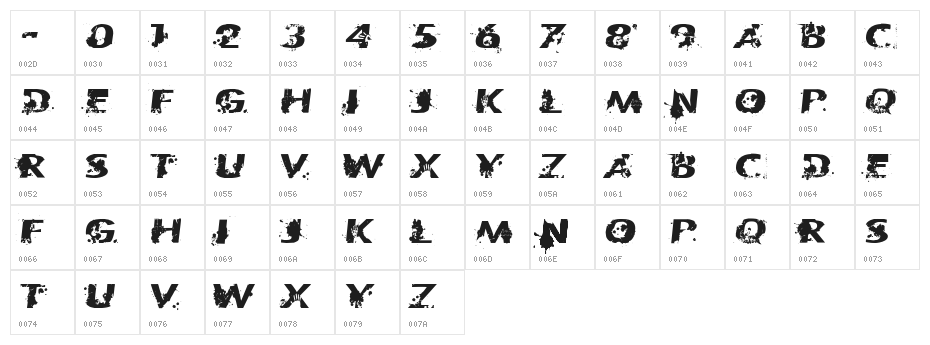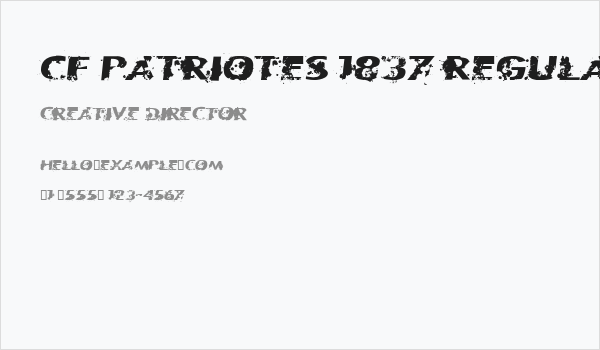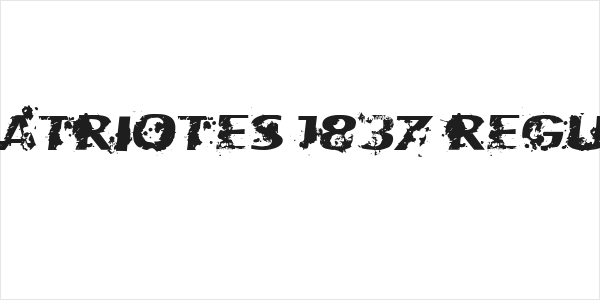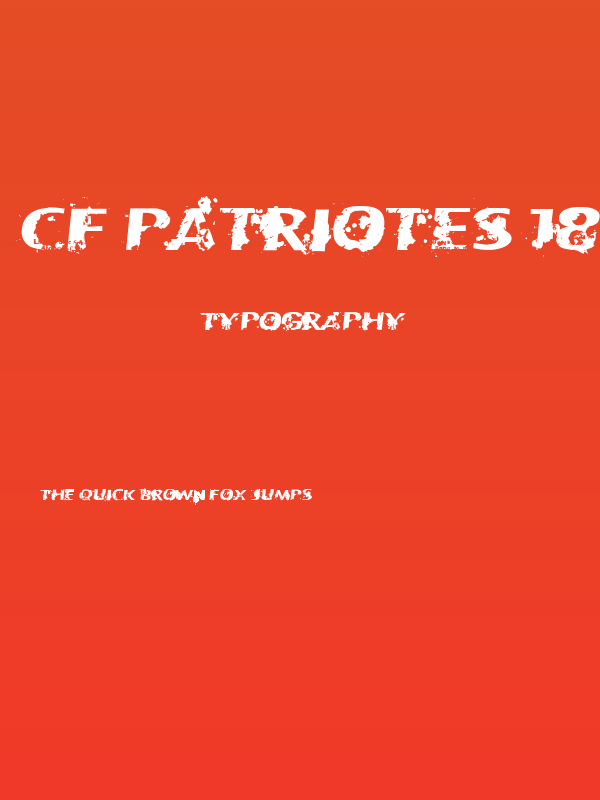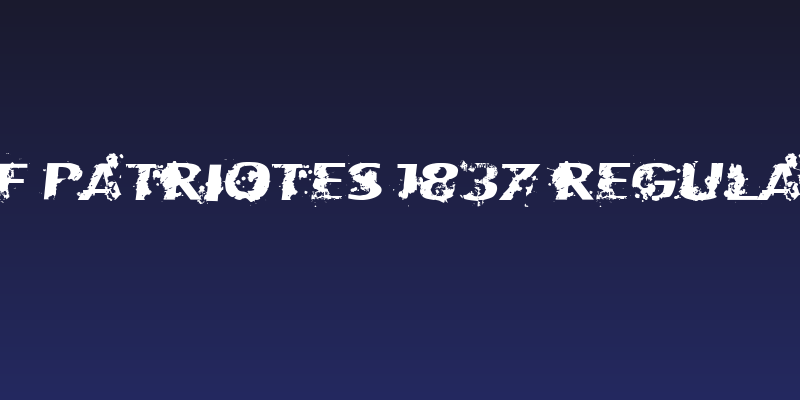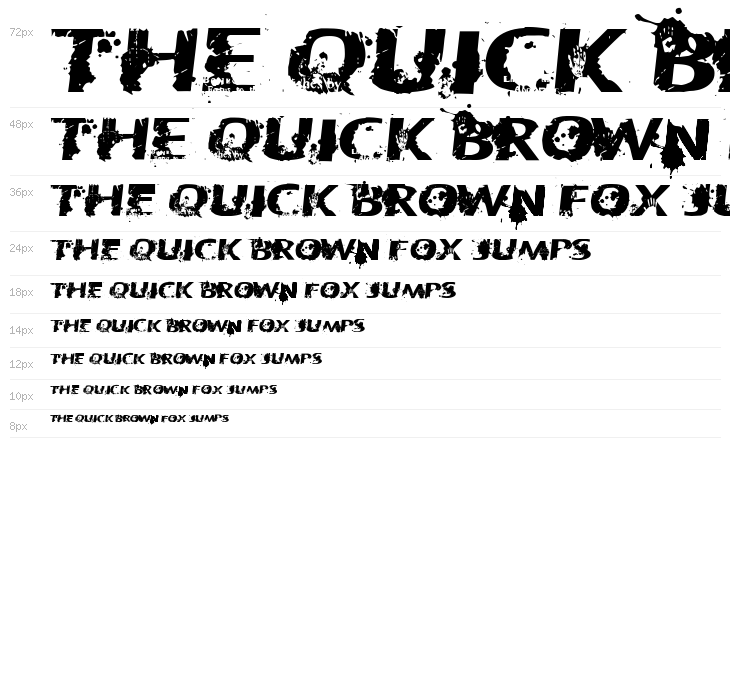
CF Patriotes 1837 Regular Font
CF Patriotes 1837 Regular Description
This font features a bold and distressed style, characterized by its rough, textured appearance that mimics a weathered or grunge effect. The letters are uppercase and lowercase, with numerals and a selection of special characters. Each character appears as if it has been eroded or splattered with ink, giving it a unique, edgy look. The font maintains a consistent weight throughout, with medium to high contrast in stroke thickness, enhancing its rugged aesthetic. The overall design is highly decorative, making it suitable for projects that require a bold statement or an artistic touch.
| Proposed Projects | Ideal for album covers, posters, street art designs, and any project needing an edgy, artistic flair. |